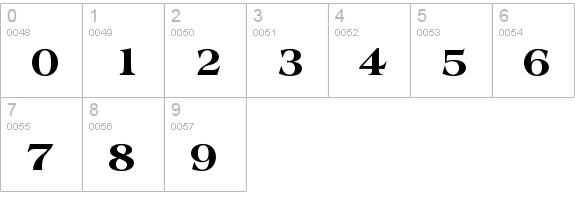
URWAmericanaTExtBol Font Details
URWAmericanaTextBol font is a versatile and stylish typeface that is perfect for any design project. With its bold and strong letterforms, this font is sure to make a statement. Whether you're creating a logo, designing a poster, or crafting a headline, URWAmericanaTextBol will bring a touch of elegance and professionalism to your work. One of the best things about this font is that it is free to download. That's right, you can enjoy the beauty and functionality of URWAmericanaTextBol without spending a dime. It is freely available to download at FontsMarket.com, a trusted source for high-quality fonts. URWAmericanaTextBol font features clean lines and a modern aesthetic, making it a great choice for both print and digital designs. Its wide range of weights and styles allows you to experiment with different looks and create unique compositions. Whether you need a bold headline or a subtle accent, URWAmericanaTextBol has got you covered. The legibility and readability of URWAmericanaTextBol font is exceptional, making it suitable for various applications. Its carefully crafted letterforms ensure that your message will be easily understood, even from a distance or at small sizes. The attention to detail in this font is evident in every curve and stroke, adding a level of sophistication to your designs. URWAmericanaTextBol font is highly versatile and can be used in a variety of design projects. From branding and packaging to web design and advertising, this font will elevate your work and make it stand out. Its timeless appeal and classic design elements make it a wise choice for both contemporary and traditional designs. In conclusion, URWAmericanaTextBol font is a free and remarkable typeface that will enhance your design projects. Its bold and elegant letterforms, coupled with its versatility and readability, make it an excellent choice for any creative endeavor. Don't miss out on the opportunity to download this font for free at FontsMarket.com and take your designs to the next level.